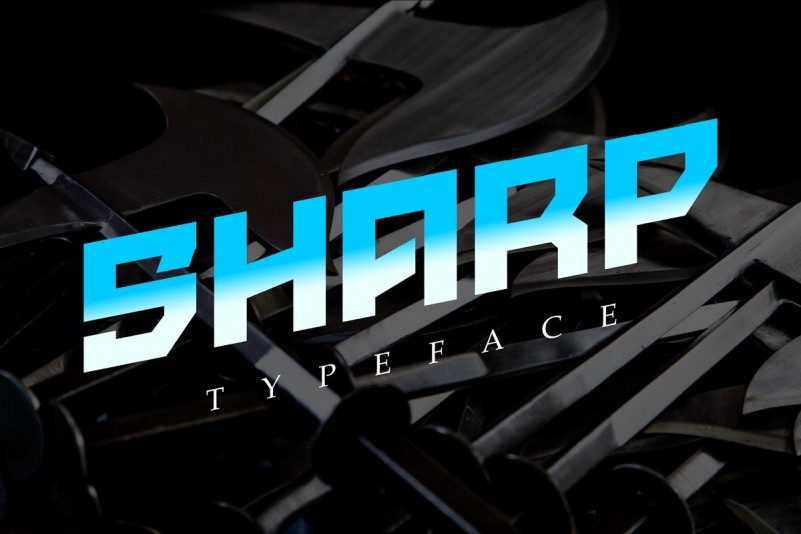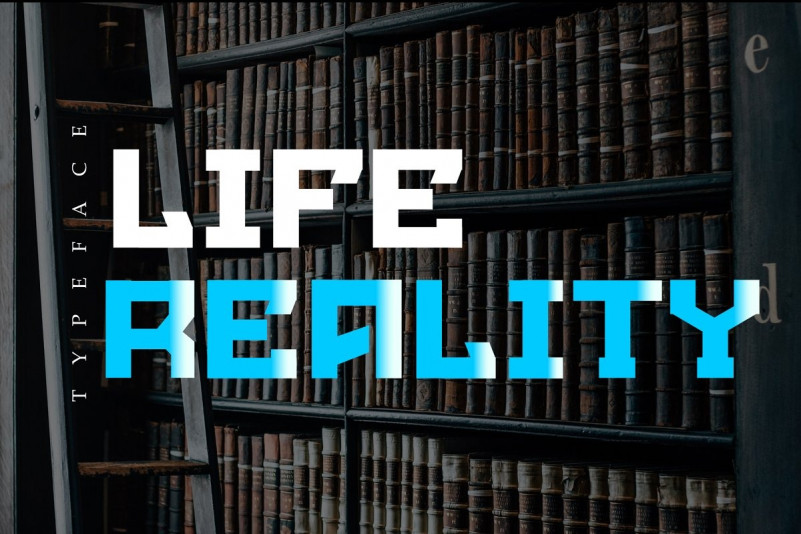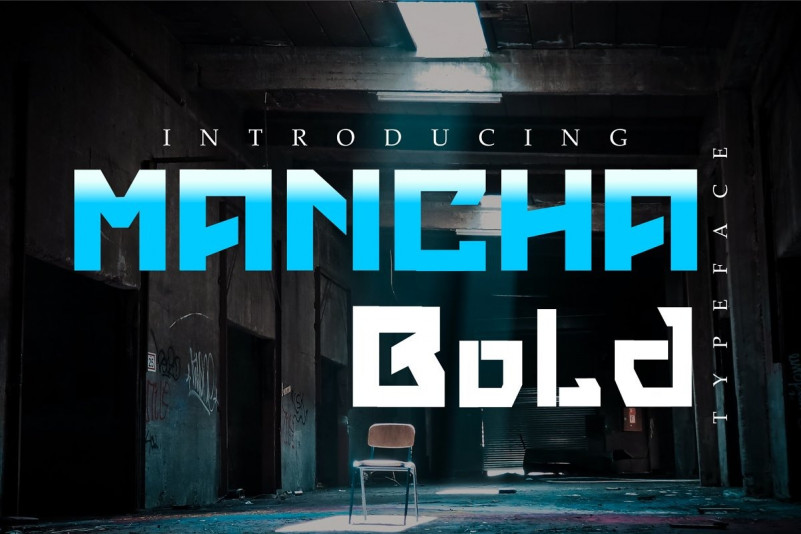
Mancha Display Font
Mancha Bold Font with style typeface bold. Set of multicolored bright letters for inscriptions and your design. Vector illustration. Isolated on white background.